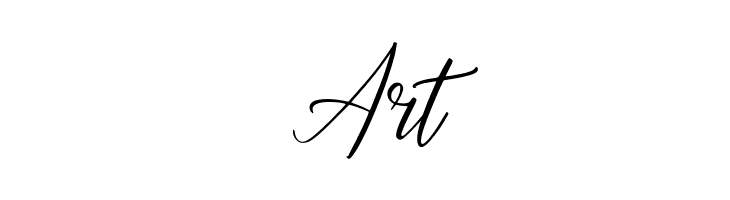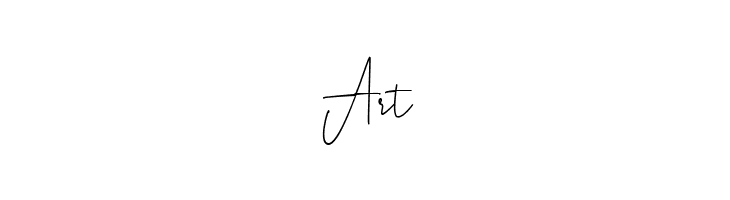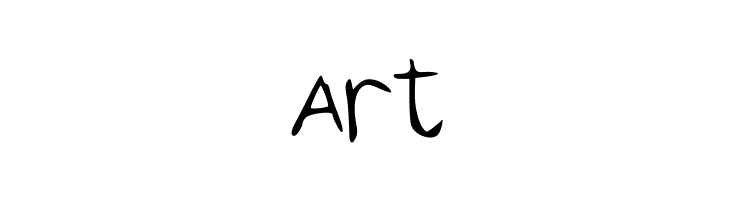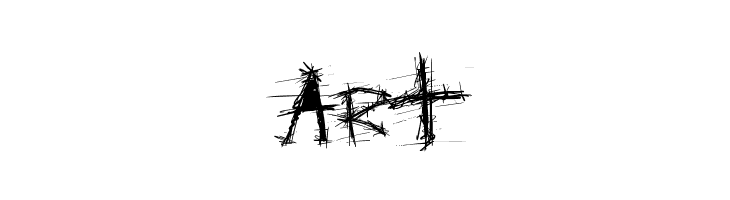
A clean, modern font with rounded, playful characters.
A lively, cursive font with a handwritten, elegant style.
A playful, handwritten font with a modern, cursive style.
A bold, playful handwritten font with thick strokes and an energetic style.
Thin, elegant handwritten script with connected, flowing letters.
Elegant and modern handwritten script font.
A playful, handwritten font with bold, rounded strokes and a casual flair.